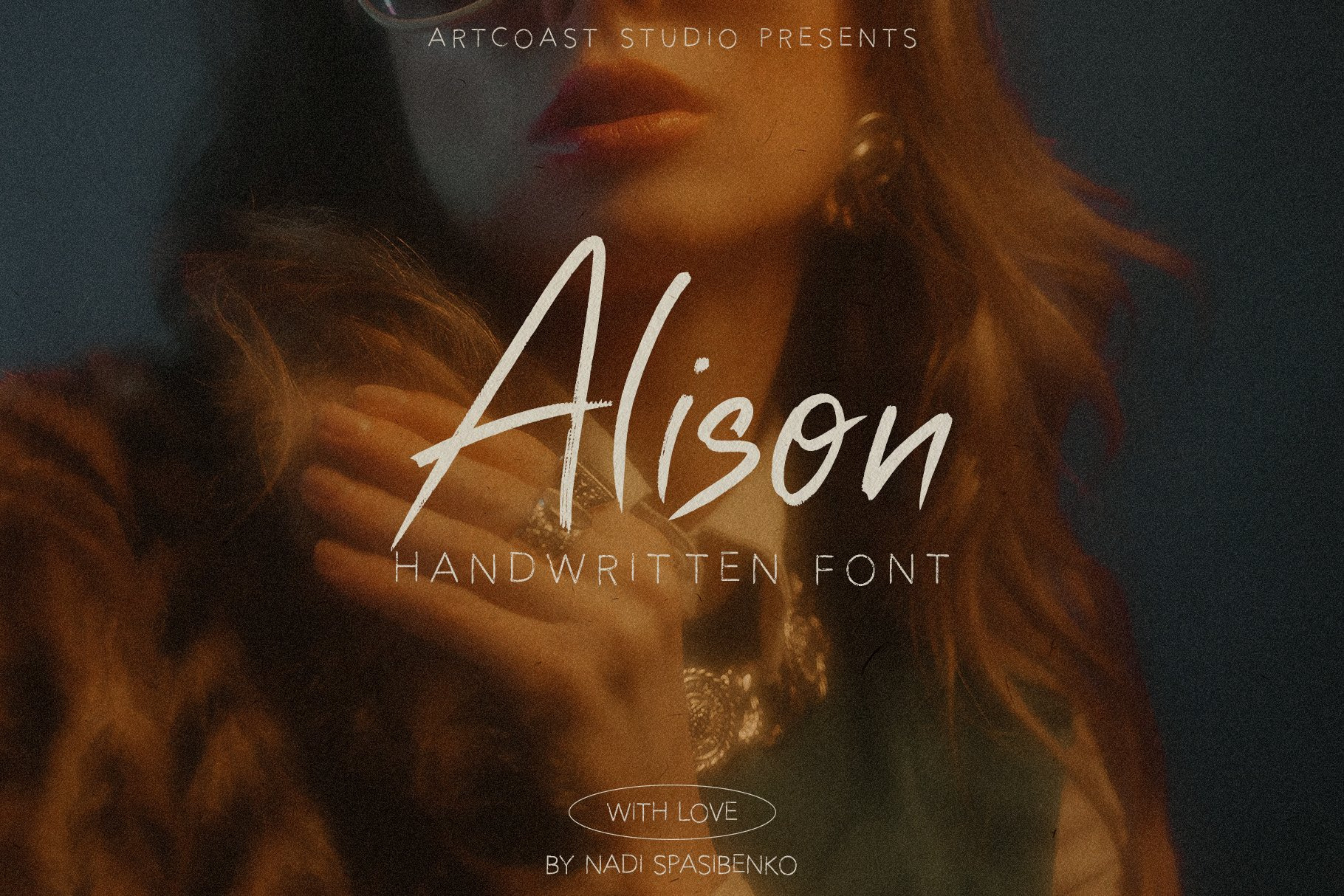
Alison Handwritten Font Duo
Incredible duo handwritten font for lettering and quotes, as well as for packaging and social media. Inspired by modern retro, looks and sounds mixed. We go retro but stay trendy.